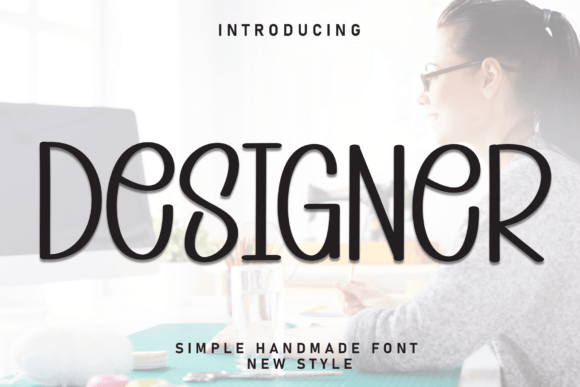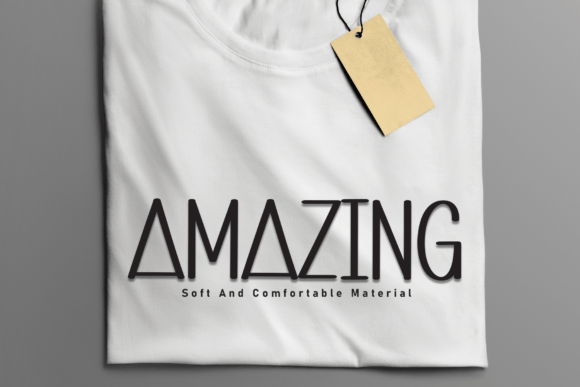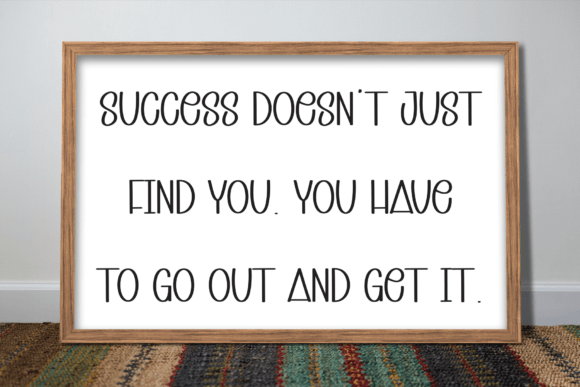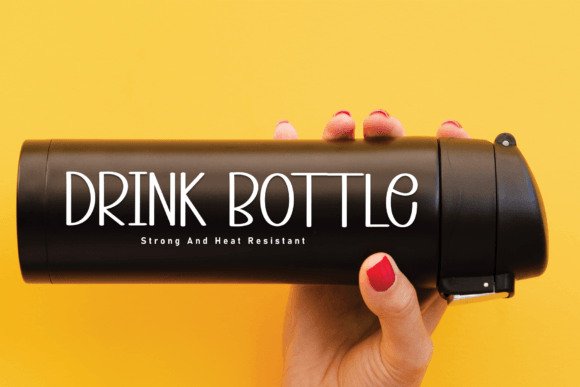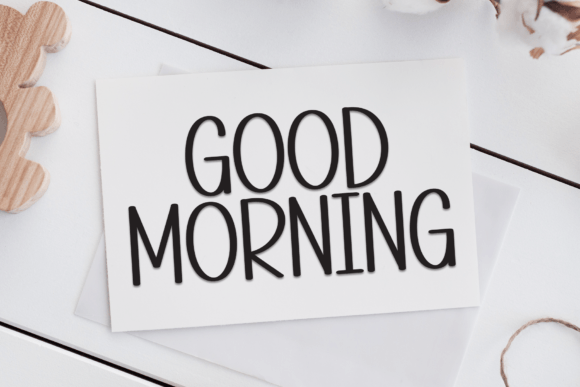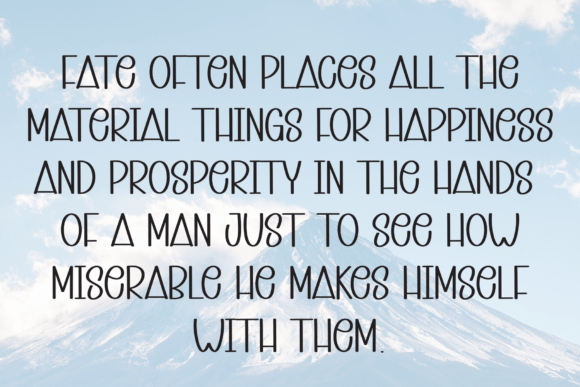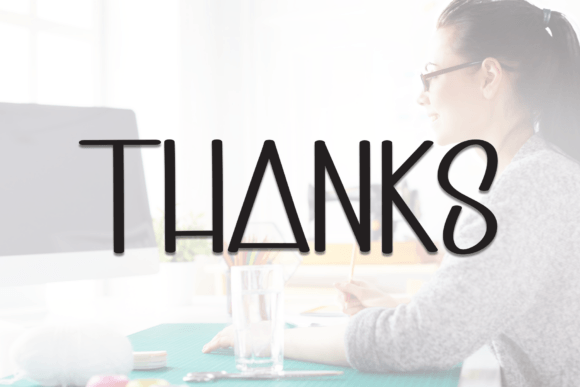
Bring a Touch of Whimsy to Your Designs
Remember that moment when you stumbled upon the perfect font to match the tone of your project? The one that makes your design come alive and transports your audience to a world of wonder? That’s exactly what happens when you work with the Designer Font – a charming and whimsical handwritten display font that’s sure to bring a smile to your face and your audience’s.
As a designer, you know that the right font can make all the difference in capturing the essence of your message. That’s why we’re excited to introduce the Designer Font, a delightful and playful companion that’s perfect for crafting engaging wedding invitations, personalized cards, or any design project that needs a dash of fun. With its cute, lighthearted flair, this font ensures your creations resonate with joy and creativity.
Designer Font Key Features
- Unique Characteristic: Features a unique blend of modern and classic design elements, making it suitable for a wide range of applications, from corporate branding to editorial content.
- Style Options: Offers a range of style options, including Regular, Bold, Italic, and Bold Italic, to provide flexibility in design and layout.
Designer Review: “Designer Font”
First off, I have to say that I was initially impressed with “Designer Font” – it’s a stylish and modern sans-serif font that’s perfect for digital design projects. The clean lines and minimalist aesthetic make it a great choice for headings and body text. ✨ I particularly love the way it looks in larger font sizes, where the bold weights really shine.
However, there are some limitations to consider. One of the main issues I have is with the font’s legibility at smaller text sizes. The thin strokes can make it difficult to read in certain contexts, especially on lower-resolution displays. ⚠️ Additionally, the font’s compatibility with older systems and browsers is a bit spotty, which can be a problem if you need to support legacy environments.
Here are a few specific areas where “Designer Font” excels and falls short:
- ✨ Great for digital design projects, especially those with a modern aesthetic
- ✨ Clean and minimalist design makes it easy to read in larger font sizes
- ⚠️ Legibility can be an issue at smaller text sizes
- ⚠️ Compatibility with older systems and browsers is a bit spotty
Overall, I think “Designer Font” is a solid choice for designers who want a modern and stylish sans-serif font. However, it’s not without its limitations, and you should be aware of these before using it in your projects.
Tip: Use Designer Font for headings and titles to add a touch of elegance to your designs.
Tip: Use Designer Font for creative typography and add a professional touch to your designs.
Tip: Use Designer Font for presentations and reports to add a touch of sophistication.
Designer Font is ideal for:
- Creative typography
Remember to experiment with different font sizes, colors, and settings to get the most out of Designer Font.
Montserrat is a sans-serif font inspired by the urban landscape of Buenos Aires. It is geometric, yet elegant, making it suitable for modern and edgy designs. When to use: For bold and creative designs, especially in branding, advertising, and digital interfaces. It compares to Designer Font as it has a more edgy and modern feel.